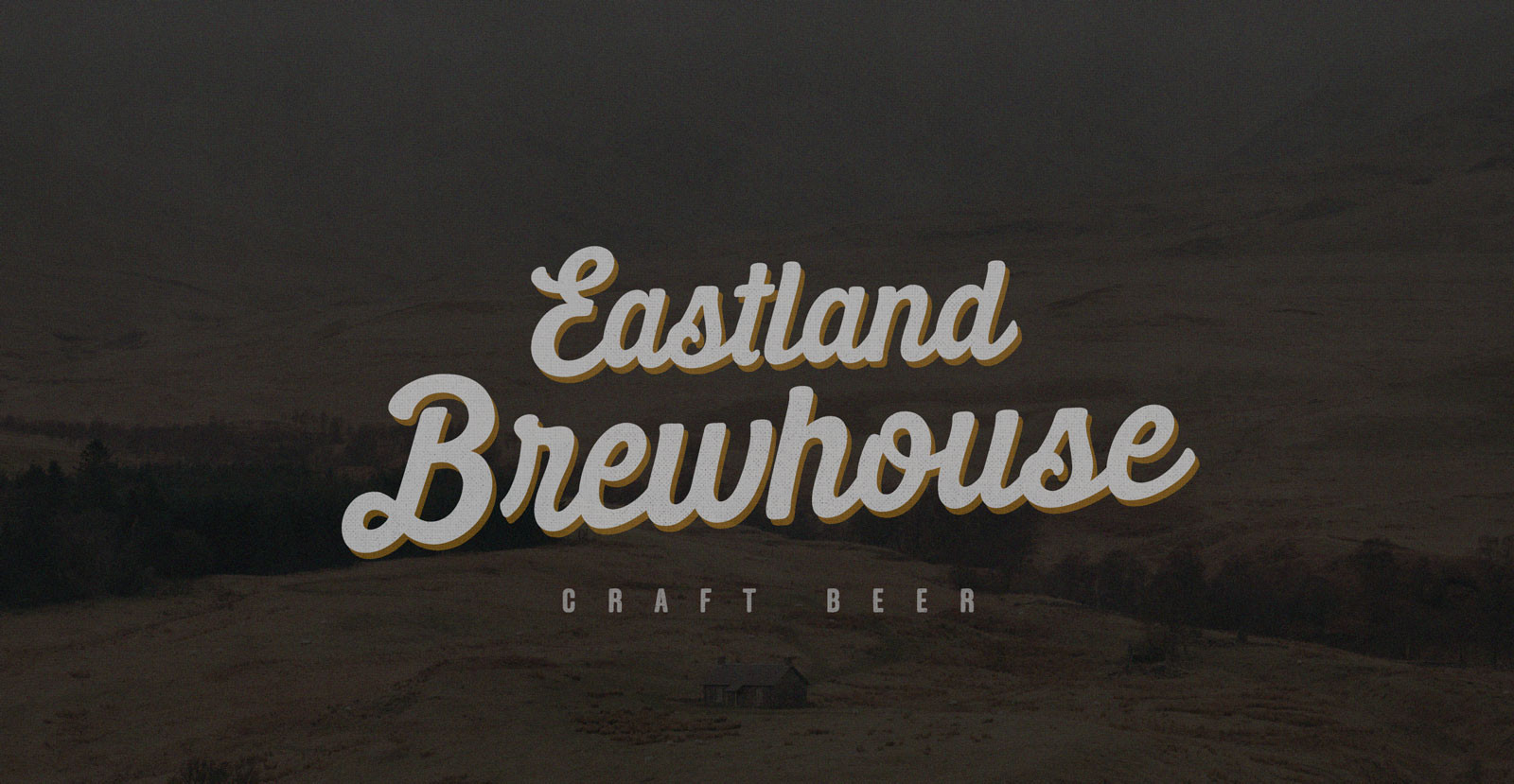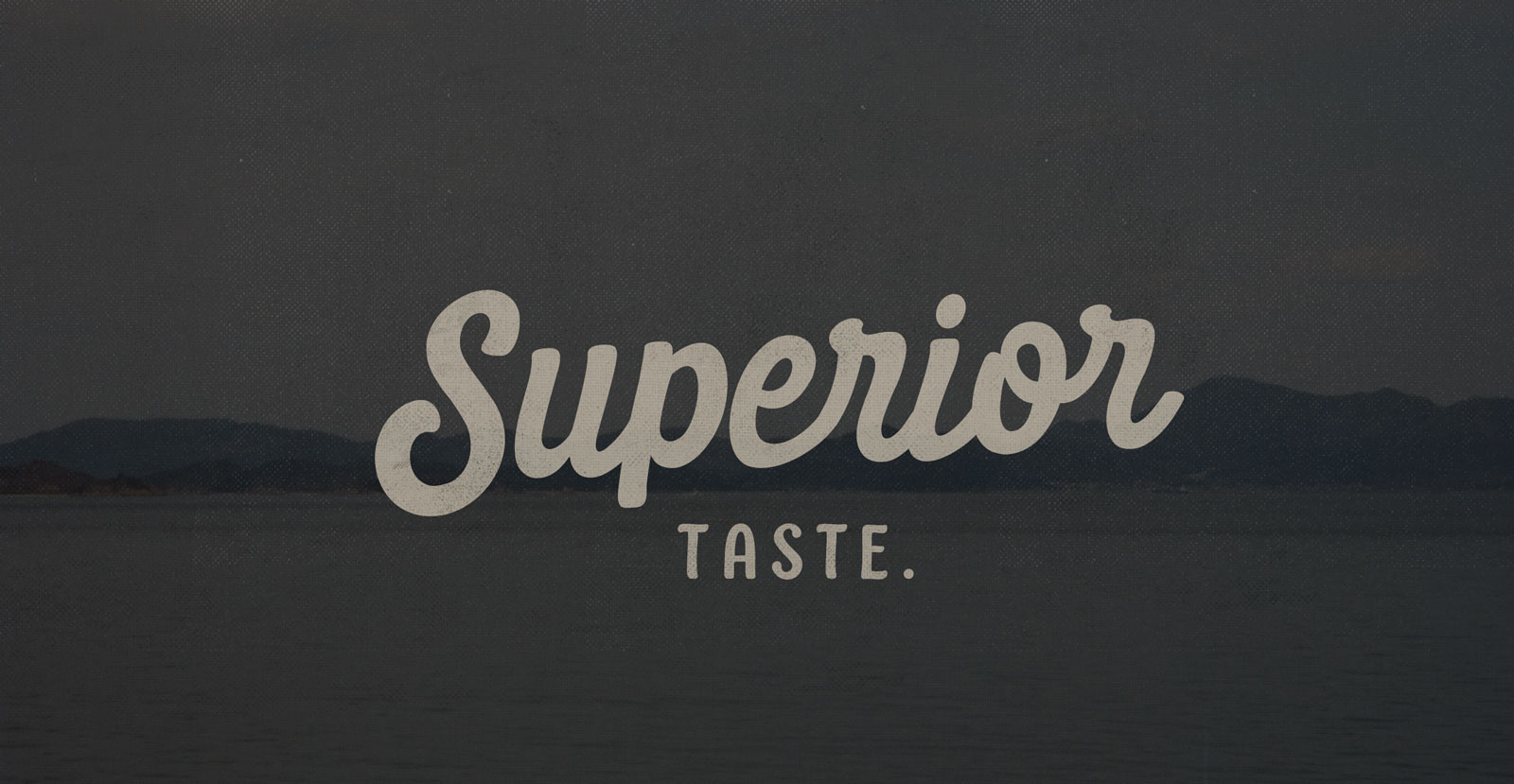
Daily Grind Script Font
Introducing Daily Grind Script Font. Daily Grind designed by blkbktyp. It is modern, delicate and classy. Daily Grind Script Font will look lovely in multiple designs like wedding invitations, website logos, Instagram posts, quotes, cards and all your other lovely projects.